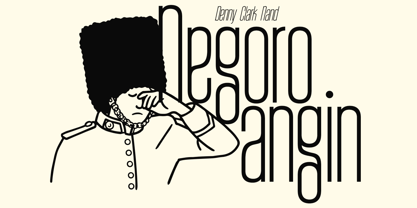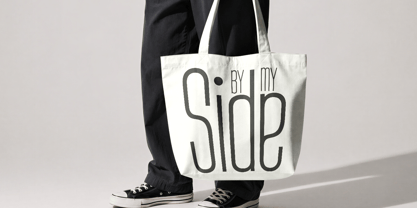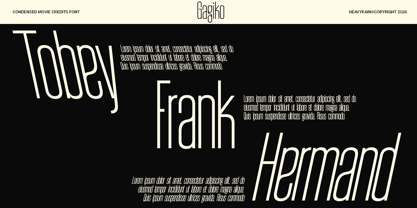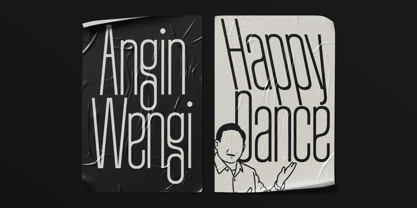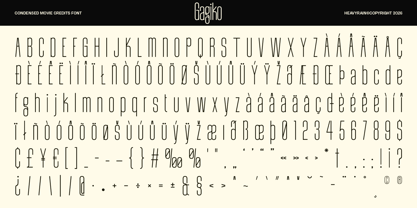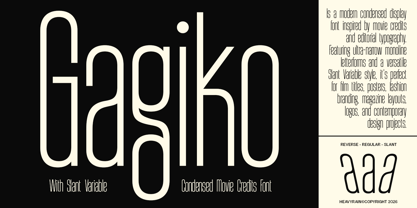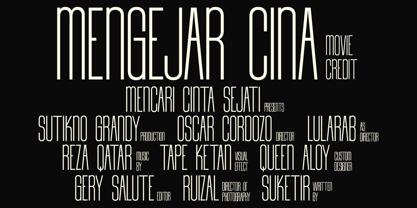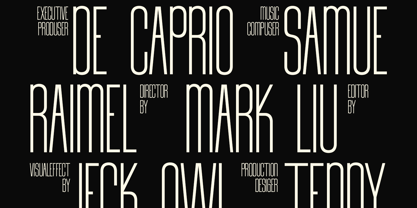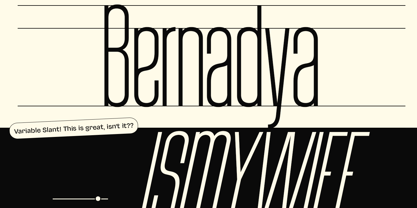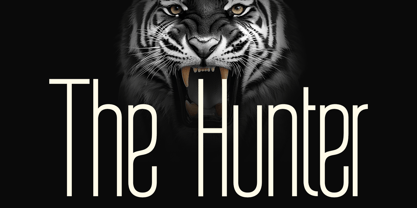
Gagiko
La famille de polices Gagiko a été conçue par Devin Bagus Kurniawan et publiée par Heavyrain. Gagiko contient 4 styles et options de package familial. En savoir plus sur cette famille
Gagiko is a refined condensed display typeface designed for cinematic titles, editorial layouts, and contemporary branding. Inspired by the elegant typography found in movie credits and modern fashion publications, Gagiko combines ultra-condensed proportions with smooth monoline construction to create a clean, distinctive, and highly recognizable appearance.
Its narrow letterforms allow designers to fit more content into limited space while maintaining exceptional readability and visual balance. The minimalist design makes Gagiko equally effective for dramatic film titles, sophisticated branding, magazine headlines, book covers, luxury packaging, and modern advertising.
To expand its creative possibilities, Gagiko includes a Slant Variable style that introduces subtle movement and personality while preserving its refined structure. Whether used in uppercase headlines or mixed-case editorial compositions, Gagiko delivers a contemporary aesthetic with timeless appeal.
Designed for creatives who appreciate precision, simplicity, and elegance, Gagiko is a versatile display font that elevates every project with cinematic character and modern sophistication.